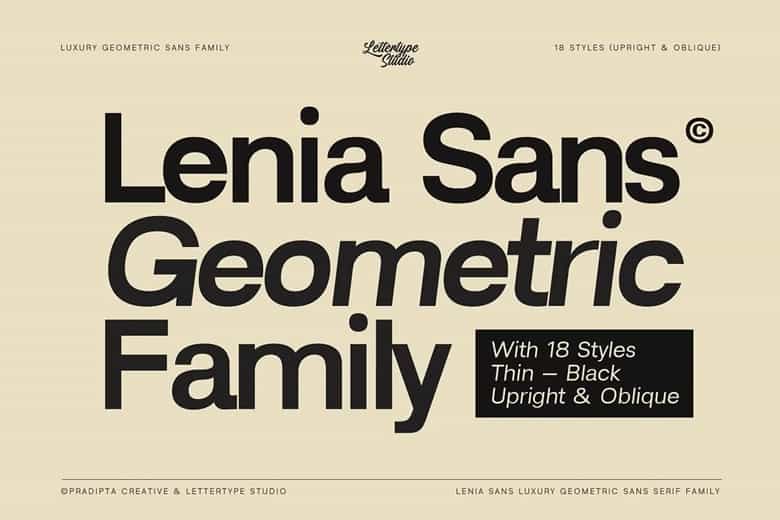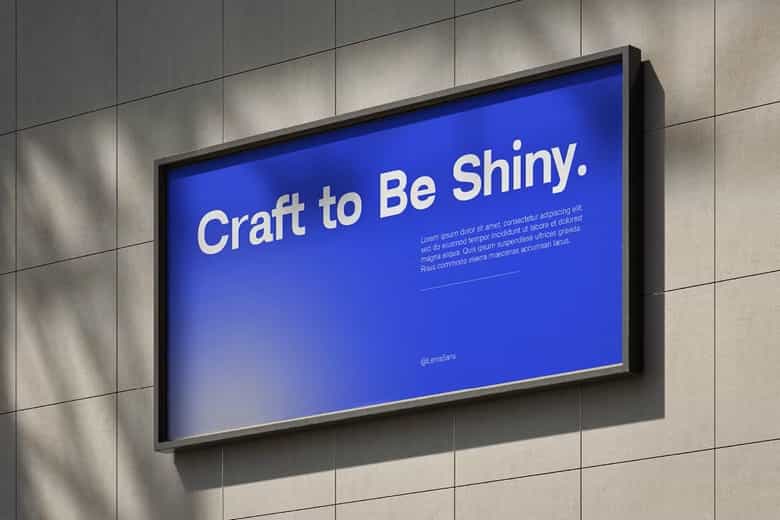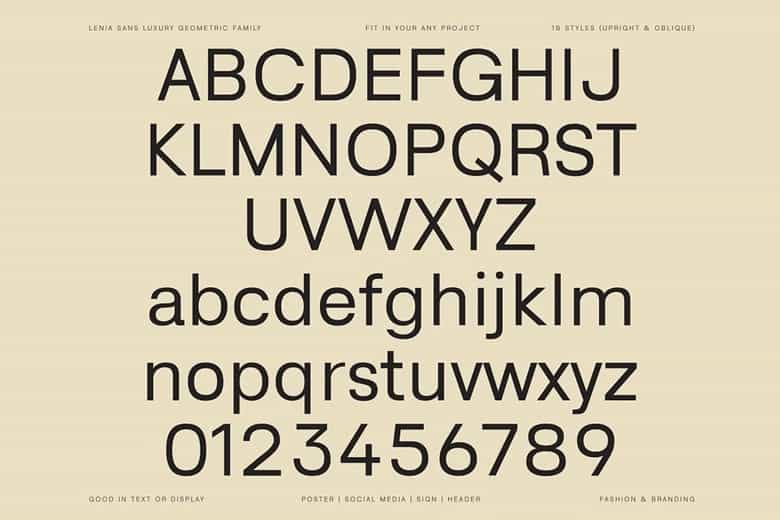
Lenia Sans Font
Lenia Sans is a new sans serif geometric font, which strikes a fine balance between a contemporary and classical style, simplicity and nature, and at the same time, possess great powers more tactfully disguised in elegant proportions. This font family is quite neutral with sharp and strict geometric aspects of modern type combined with a friendly feel and singularity. It may come in thin to black, with 18 weights and oblique style included.